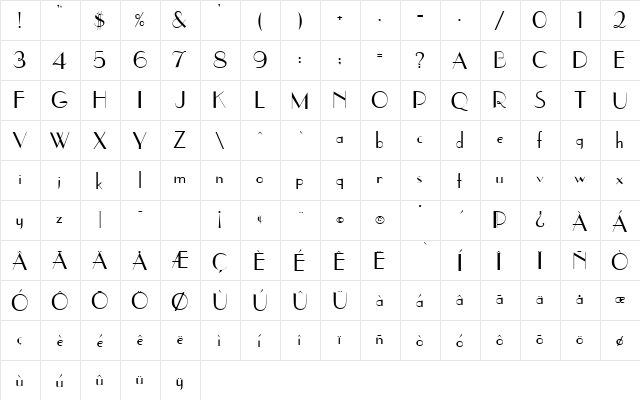
UppEa Regular
Design Context for UppEa Typeface
UppEa is a composed and adaptable typeface that performs quietly and consistently across a wide range of design contexts.